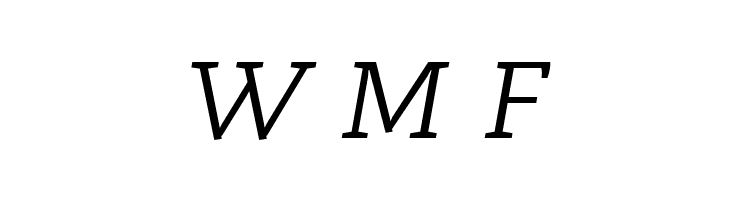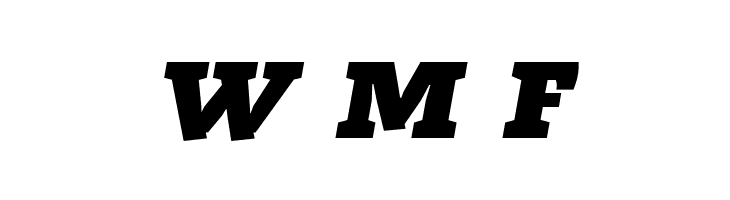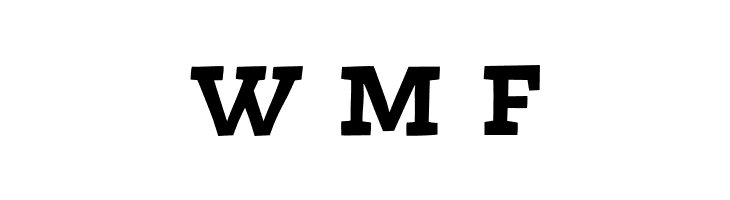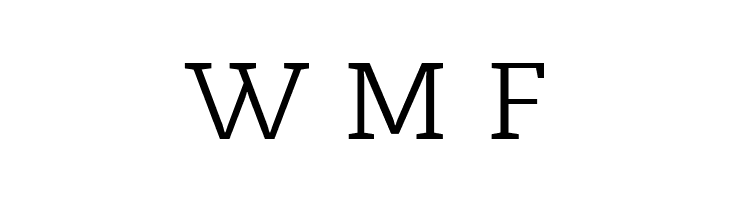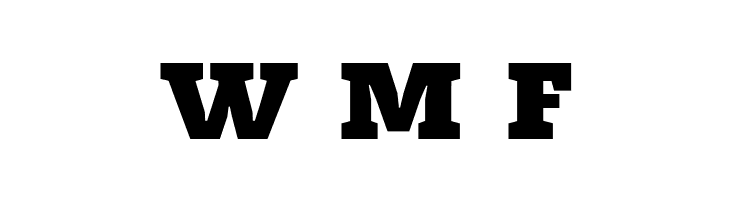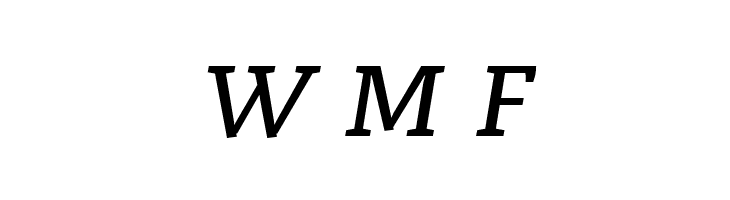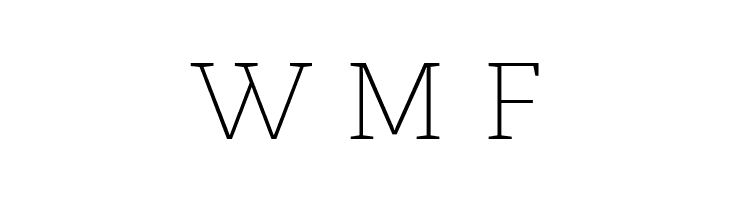
An elegant serif font with a classic italic style and refined serifs.
A bold serif font with strong strokes and pronounced serifs, ideal for impactful headlines.
A bold, italic serif font with a dynamic and commanding presence.
A bold slab serif font with strong, well-defined characters.
A modern serif font with clean lines and balanced proportions.
A bold, heavy serif font with a strong, impactful presence.
A classic serif font with medium weight and elegant italic style.
An elegant, light, and italic serif font with classic and refined features.
A refined, elegant font with thin strokes and clean lines, perfect for sophisticated designs.
A bold, high-contrast italic serif font with a dynamic and elegant style.